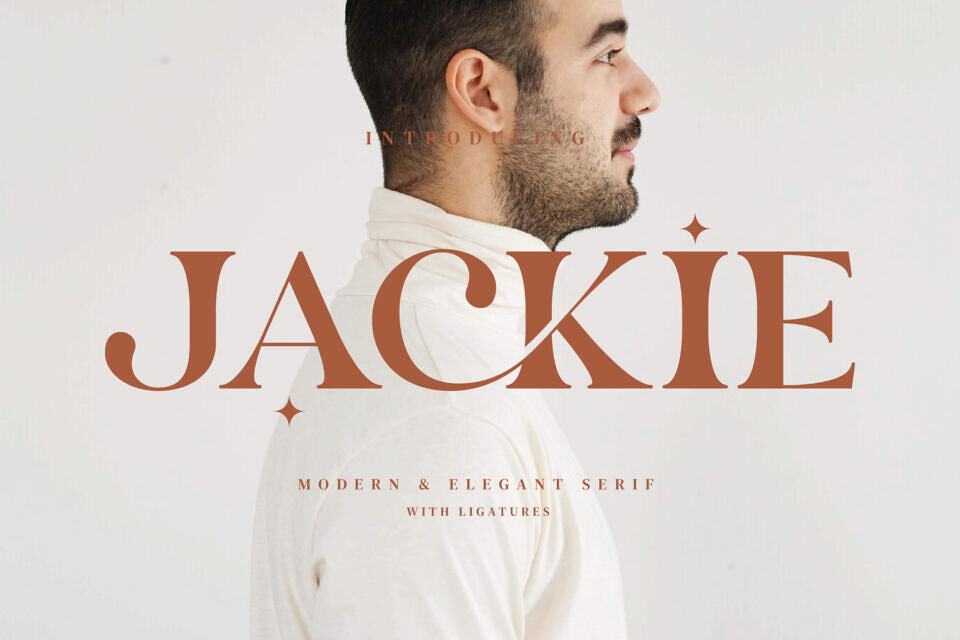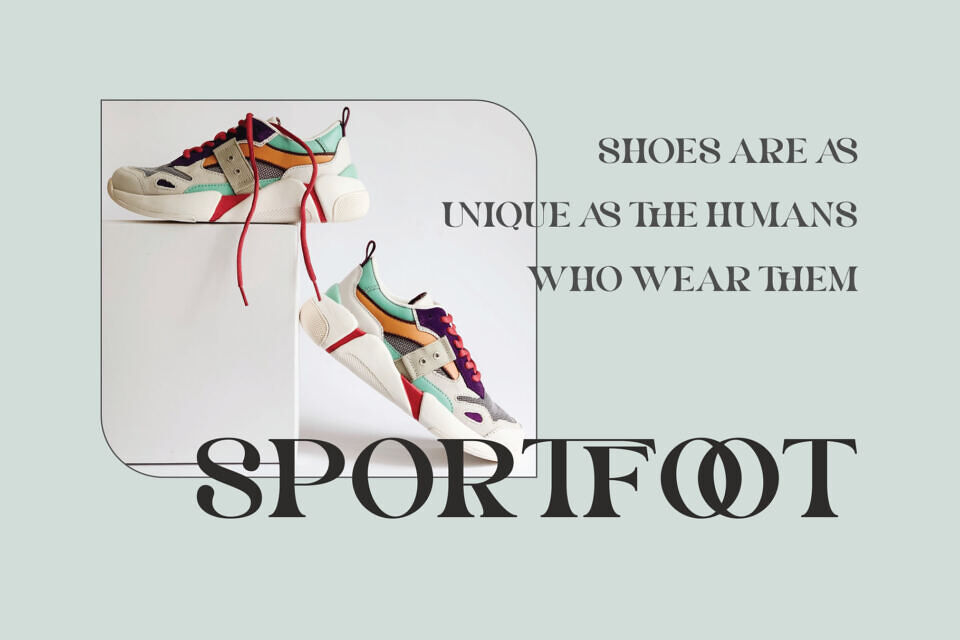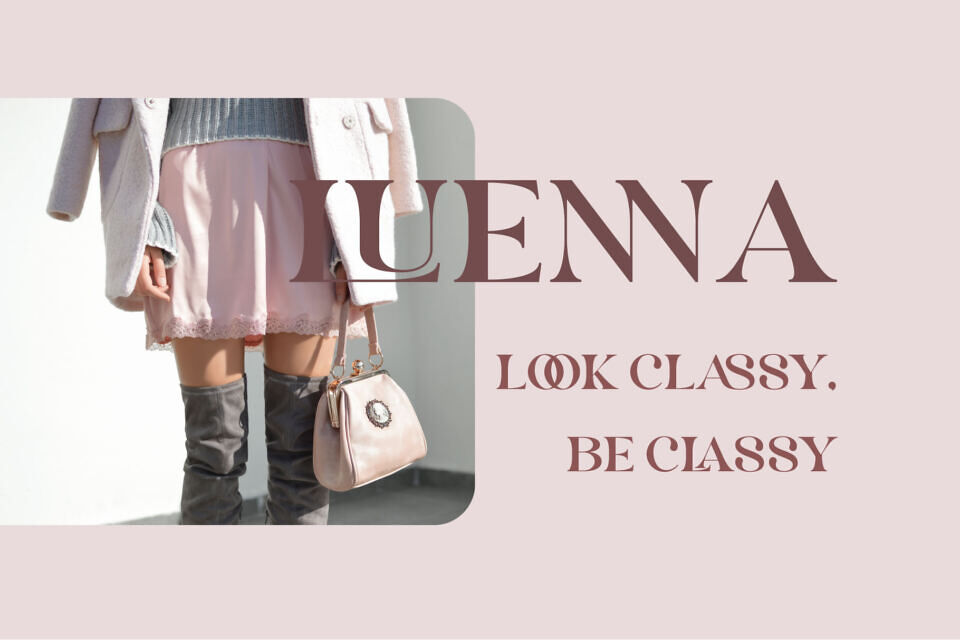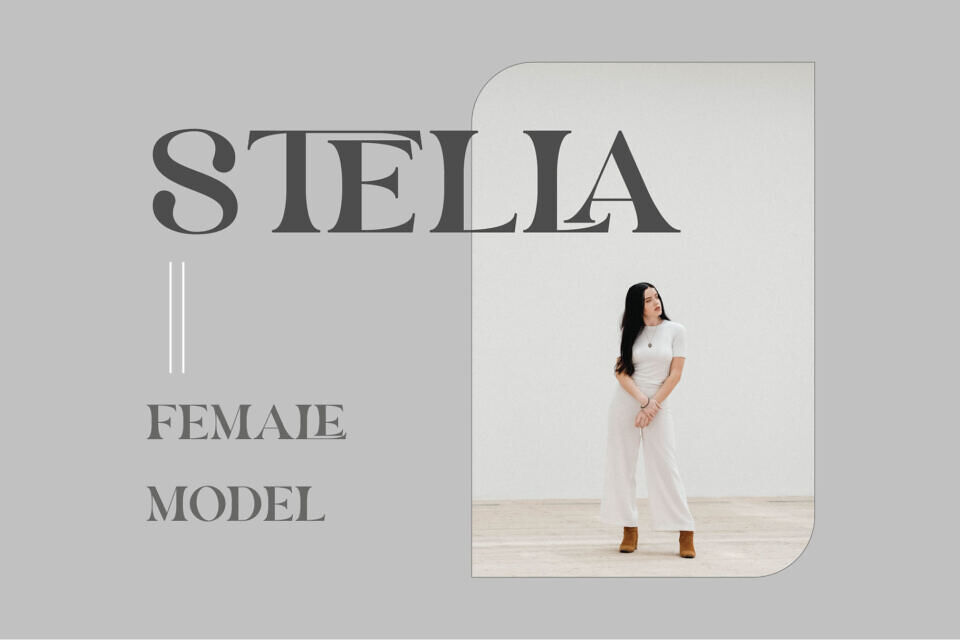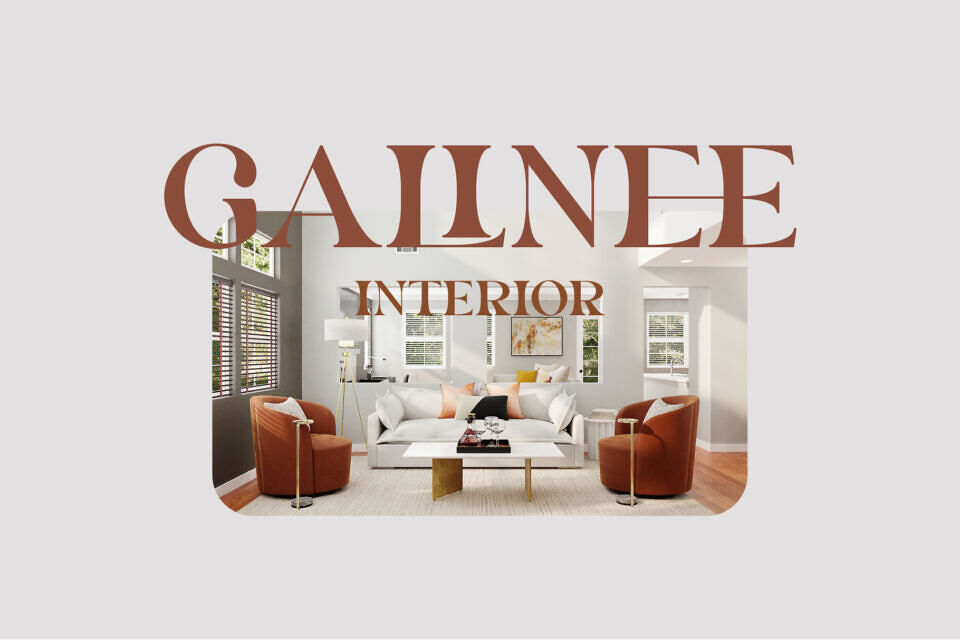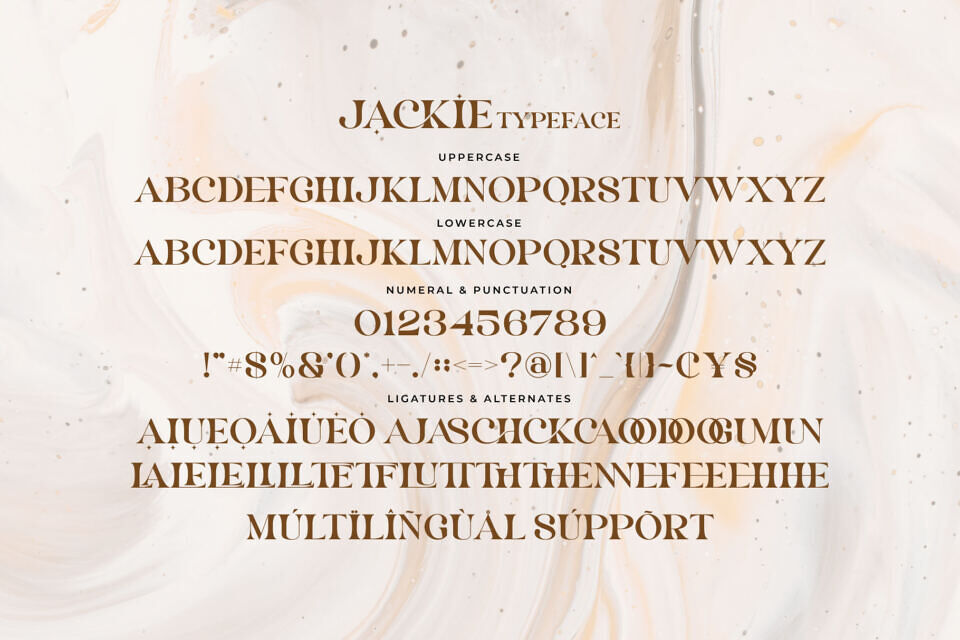
Jackie Font
The Jackie font exudes style and luxury, drawing inspiration from a iconic minimalist design. Its elegant serif style makes it ideal for various creative projects, including template design, brochures, video production, and branding materials like logos and advertisements.